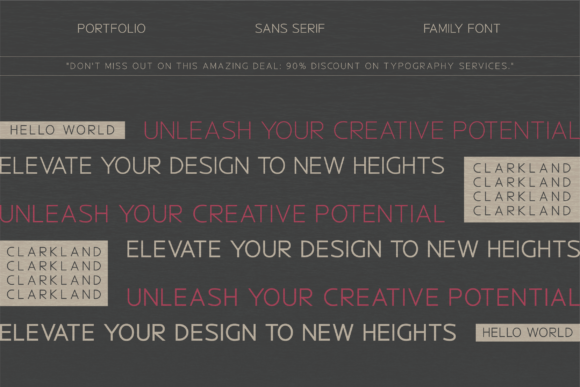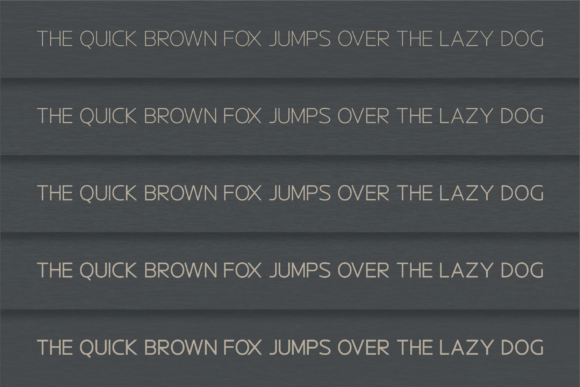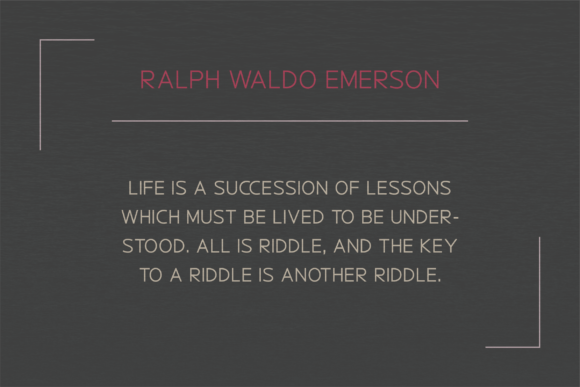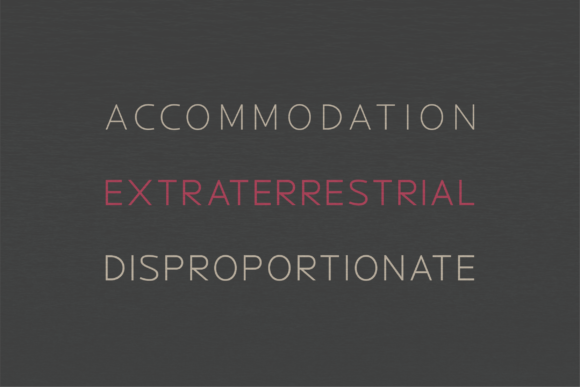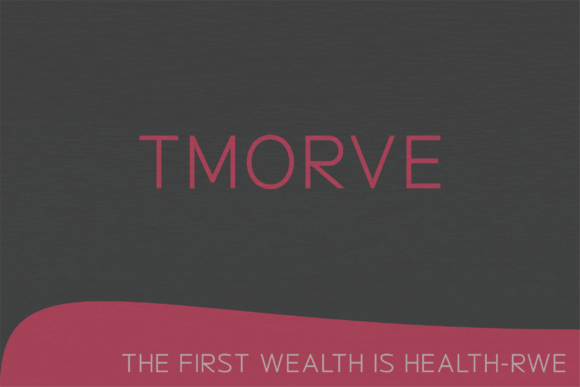
Introducing the Clarkland Font Family: Elevate Your Designs with Sophistication and Simplicity
In the world of typography, finding the perfect font that embodies both sophistication and simplicity can be a daunting task. However, look no further than the Clarkland font family. This exquisite collection of sans serif fonts is designed to seamlessly blend modernity and extravagance, making it an ideal choice for designers and crafters seeking to elevate their creative projects.
A Supreme Blend of Style and Versatility
The Clarkland font family boasts an impressive range of five unique weights, providing unparalleled versatility for a wide range of applications. Whether you’re working on magazine content, logo design, or a captivating film poster, Clarkland effortlessly adapts to enhance the appeal of your project. Its precise craftsmanship ensures a flawless integration into any design, allowing your creativity to shine.
Timeless Allure and Grace
With Clarkland, you have the opportunity to infuse your designs with a timeless allure and grace. This font family is carefully crafted to evoke a sense of sophistication, making it perfect for projects that demand a touch of elegance. From editorials to branding, Clarkland’s classic appeal ensures your designs remain relevant and stylish for years to come.
Key Features of Clarkland Font Family
- Five Unique Weights: Clarkland offers a range of weights, from light to bold, allowing you to tailor your typography to suit your design needs.
- Sans Serif Design: The clean and minimalist sans serif design of Clarkland ensures perfect legibility, making it ideal for body text and headlines.
- Seamless Integration: Clarkland’s versatility allows it to blend effortlessly into any design, ensuring a cohesive and polished look.
- Modern and Extravagant: Clarkland’s unique blend of modernity and extravagance makes it perfect for designers seeking to create striking and memorable designs.
Applications of Clarkland Font Family
Clarkland’s versatility makes it suitable for a wide range of applications, including:
- Magazine Content: Clarkland’s elegant design makes it perfect for magazine content, from articles to headlines.
- Logo Design: Create a lasting impression with Clarkland’s bold and sophisticated design, ideal for logos and branding.
- Film Posters: Clarkland’s striking appearance makes it perfect for film posters, adding a touch of glamour and sophistication.
- Digital Media: Clarkland’s clean design ensures perfect legibility on digital platforms, making it suitable for websites, social media, and more.
Embracing the Transformative Power of Clarkland
The Clarkland font family offers designers and crafters a chance to elevate their creative projects with a timeless and sophisticated touch. By embracing Clarkland, you’ll unlock a world of design possibilities, allowing your work to speak volumes. Whether you’re seeking to create a lasting impression or add a touch of elegance, Clarkland is the perfect choice.
In conclusion, the Clarkland font family is a supreme blend of sophistication and simplicity, making it an essential tool for designers and crafters. With its five unique weights, seamless integration, and timeless allure, Clarkland is the perfect choice for a wide range of applications. Unlock the transformative power of Clarkland and let your designs speak volumes.